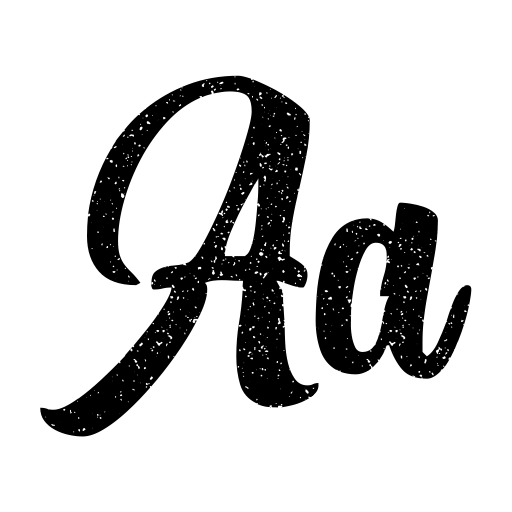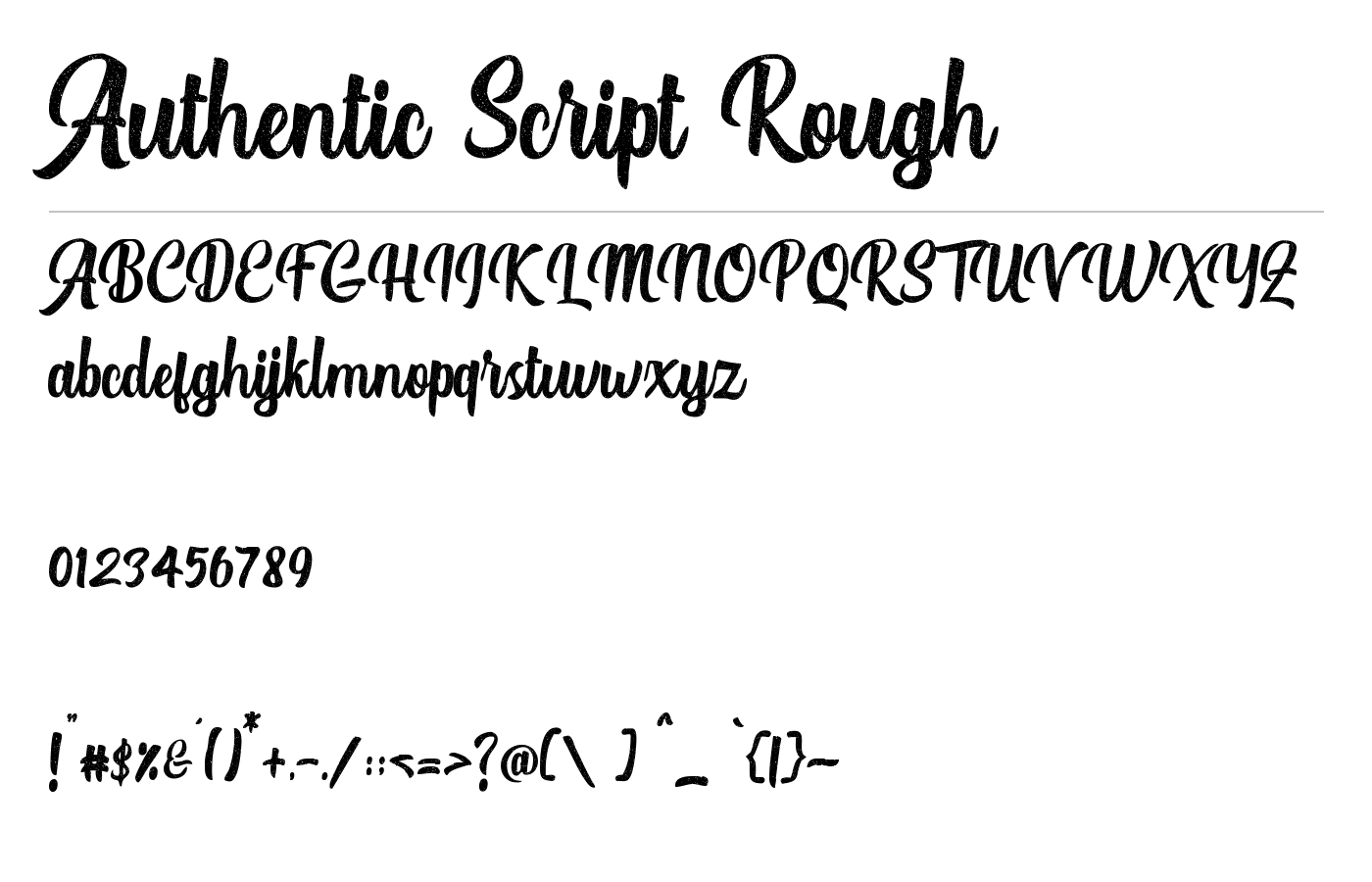
Authentic Script Rough is a stylish and textured script font that combines a lively, hand-drawn feel with a vintage roughness, giving it an organic and approachable personality. Its medium weight and slightly condensed letterforms feature smooth curves and connected strokes, perfect for adding a warm, authentic touch to branding, packaging, and creative headlines. This font works wonderfully for designs aiming to evoke a handcrafted, nostalgic vibe with a modern twist.
Authentic Script Rough Font
About Authentic Script Rough Font